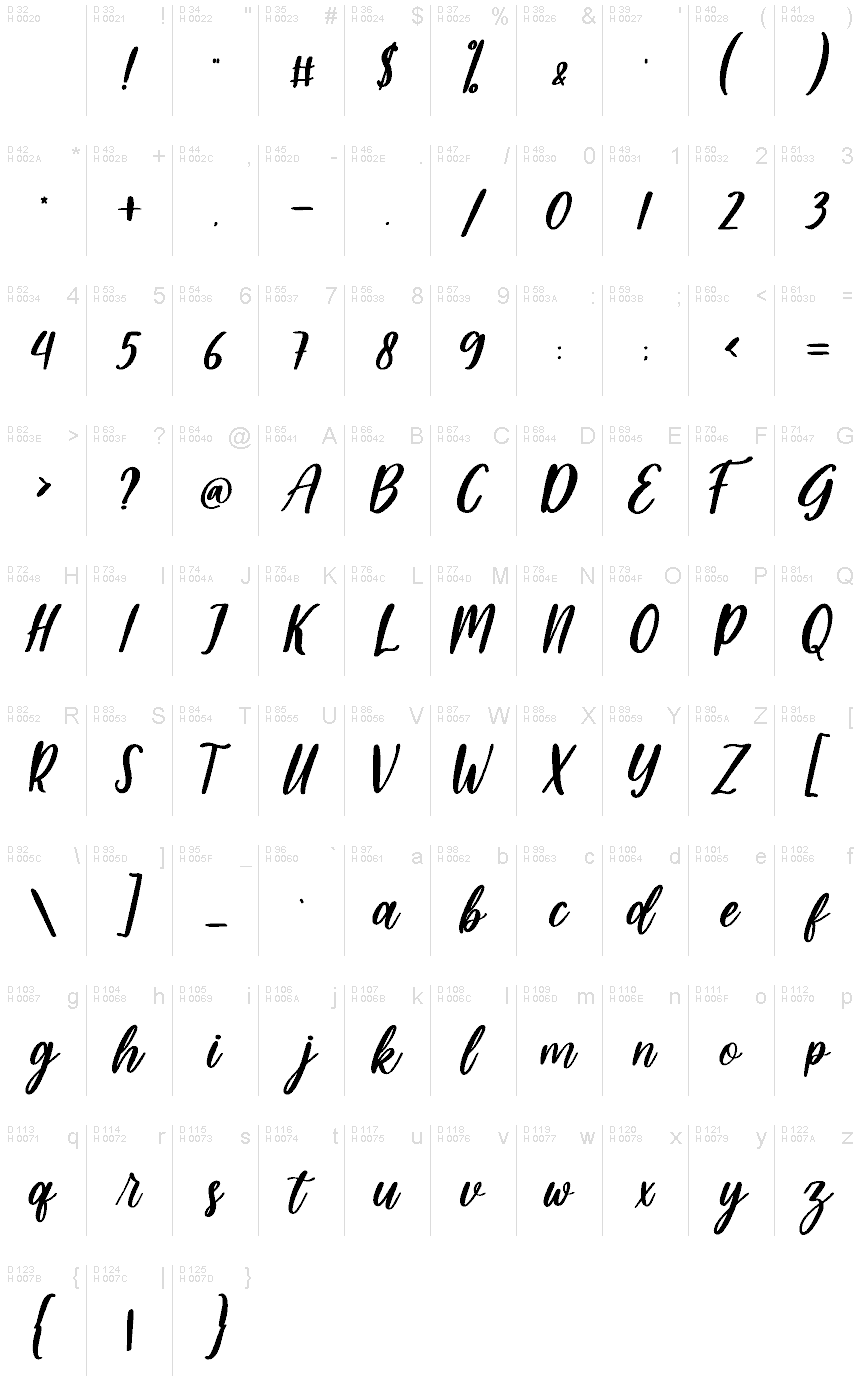
Strike
Strike font from Skiiller Studio is a flowing handwritten font with a modern appeal. Expressive and stylish, this striking typeface captures attention through its carefully created design in which the condensed style plays an important role. This combination results in elegant scripts that can showcase new projects and deliver branding designs like never before.